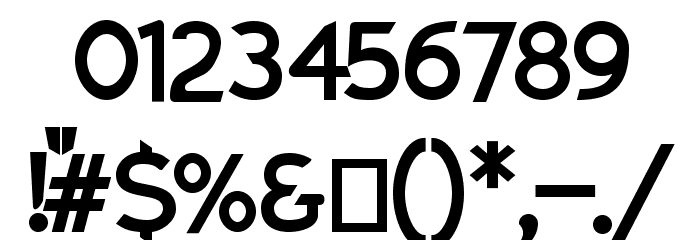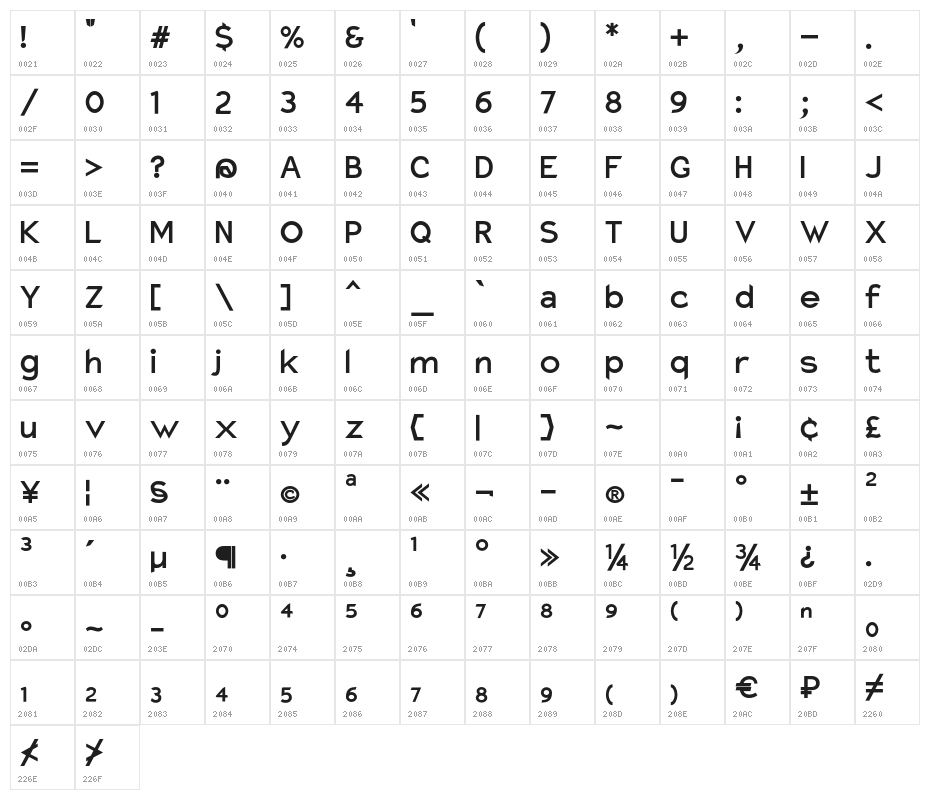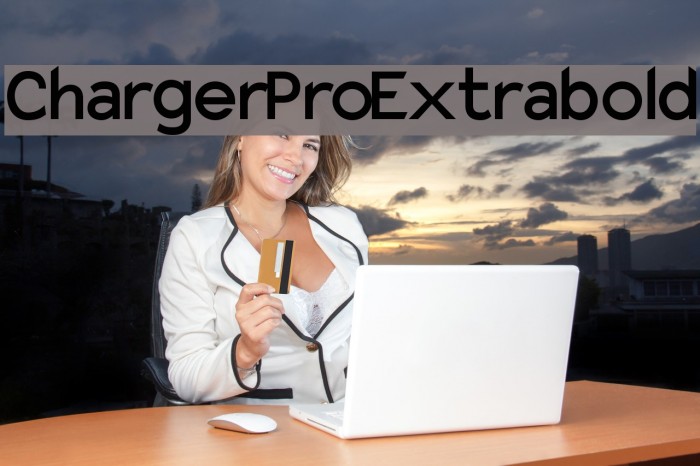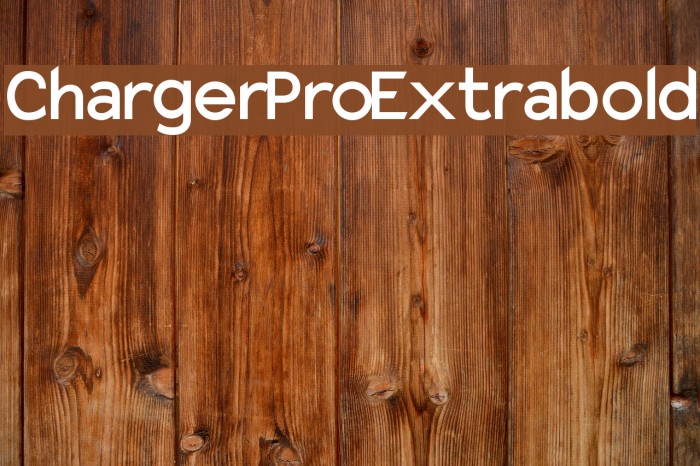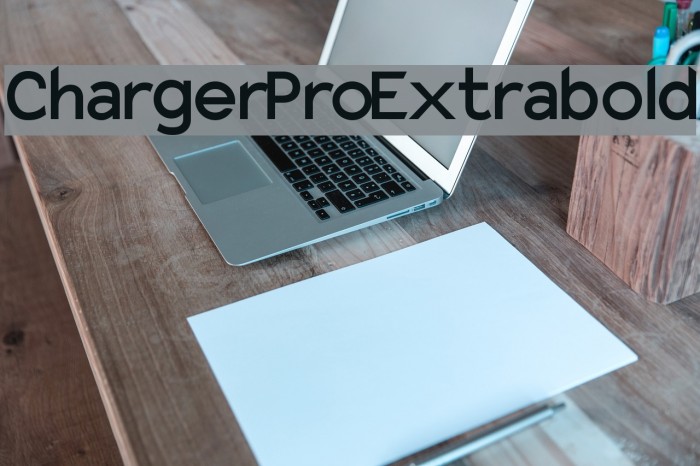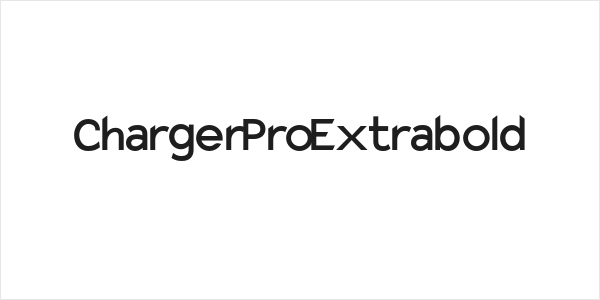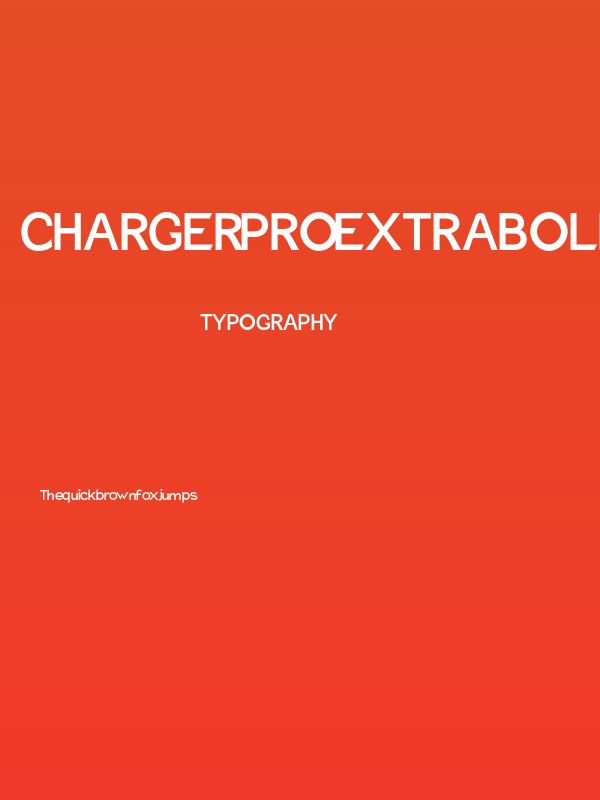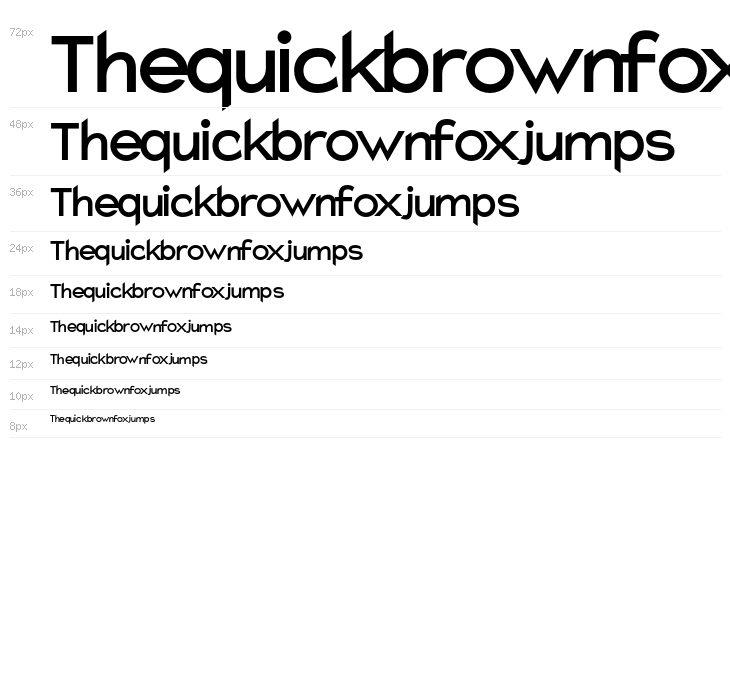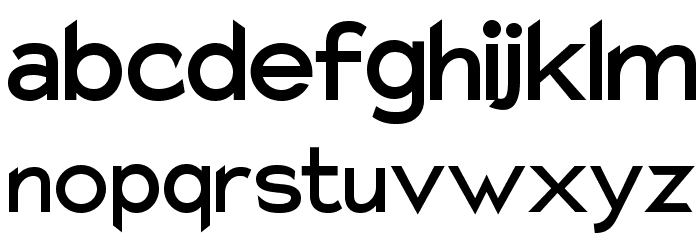
Charger Pro Extrabold Font
Charger Pro Extrabold Description
This font features a bold and modern sans-serif design with clean, geometric lines. The characters are well-defined with a uniform stroke width, giving it a strong and impactful appearance. The uppercase and lowercase letters are balanced, with a slight emphasis on the horizontal lines, creating a sense of stability and confidence. The numerals are clear and easy to read, while the special characters maintain the same bold aesthetic, ensuring consistency across all text elements. This font is versatile, suitable for both digital and print media, and can effectively convey a contemporary and professional tone.